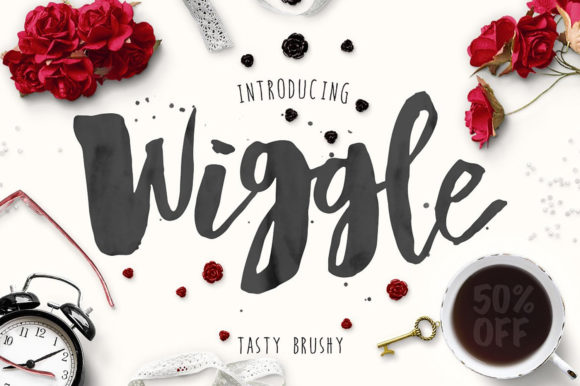
Wiggle Font
Wiggle is a chic and trendy handwritten font. It will elevate a wide range of crafting ideas, from cards, to branding, labels and much more.
Add it confidently to your favorite creations and let yourself be amazed by the outcome generated.